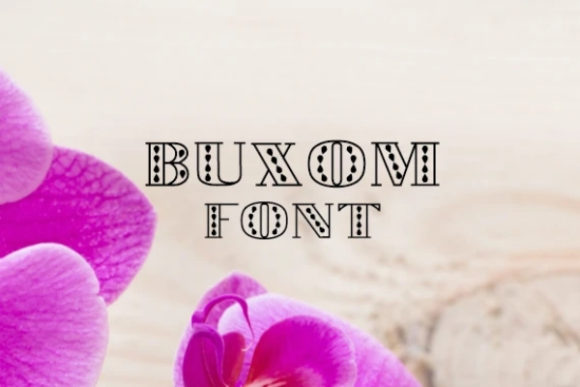
Buxom Font: The Perfect Blend of Style and Versatility
In the world of typography, a good font can make all the difference in the success of a design project. Whether you’re a seasoned designer or a crafty DIY enthusiast, finding the right font can be a daunting task. That’s where Buxom Font comes in – a bold, display font that’s been carefully handcrafted to become a true favorite among designers and crafters alike.
The Charm of Buxom Font
Buxom Font boasts a casual charm that makes it appear wonderfully down-to-earth, readable, and incredibly versatile. Its unique blend of style and simplicity makes it perfect for a wide range of design applications, from bold headlines to eye-catching signage. Whether you’re looking to create a stunning visual display or simply want to add a touch of personality to your text, Buxom Font is the perfect choice.
What Makes Buxom Font So Special?
So, what sets Buxom Font apart from other fonts on the market? For starters, its bold and daring design makes it perfect for grabbing attention and making a statement. Its carefully crafted letters are designed to be highly readable, even at smaller sizes, making it a great choice for body text as well as headlines. Additionally, Buxom Font’s versatility means it can be used in a wide range of contexts, from digital displays to print materials.
Using Buxom Font in Different Contexts
One of the things that makes Buxom Font so special is its ability to shine in any context. Whether it’s being used on busy backgrounds or as a standalone headline, this font is sure to make a statement. Here are just a few examples of how you can use Buxom Font in your designs:
- Headlines and Titles: Buxom Font’s bold design makes it perfect for headlines and titles, where you want to grab attention and make a statement.
- Signage and Displays: Buxom Font’s highly readable letters make it a great choice for signage and displays, where you want to communicate your message clearly and effectively.
- Digital Displays: Buxom Font’s clean and simple design makes it perfect for digital displays, from social media graphics to website headers.
- Print Materials: Buxom Font’s versatility means it can be used in a wide range of print materials, from brochures and flyers to posters and business cards.
Why Designers and Crafters Love Buxom Font
So, why do designers and crafters love Buxom Font so much? Here are just a few reasons:
- Unique Style: Buxom Font’s unique blend of style and simplicity makes it stand out from other fonts on the market.
- Highly Readable: Buxom Font’s carefully crafted letters are designed to be highly readable, even at smaller sizes.
- Versatile: Buxom Font’s versatility means it can be used in a wide range of contexts, from digital displays to print materials.
In conclusion, Buxom Font is a bold and versatile display font that’s perfect for designers and crafters looking to add a touch of style and personality to their text. Its unique blend of style and simplicity makes it highly readable and incredibly versatile, making it perfect for a wide range of design applications. Whether you’re looking to create a stunning visual display or simply want to add a touch of charm to your text, Buxom Font is the perfect choice.